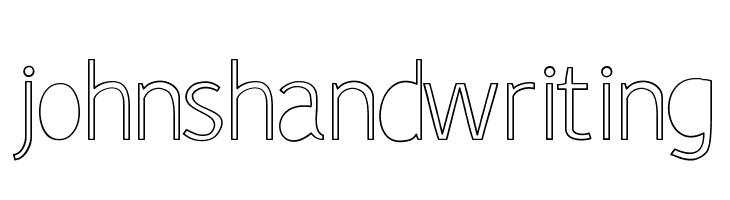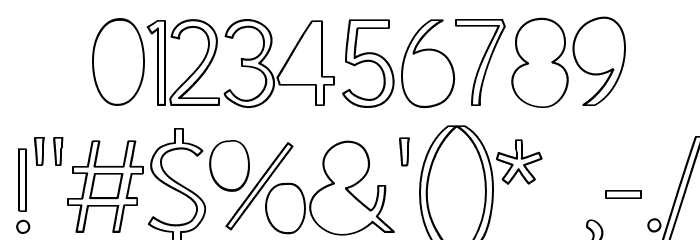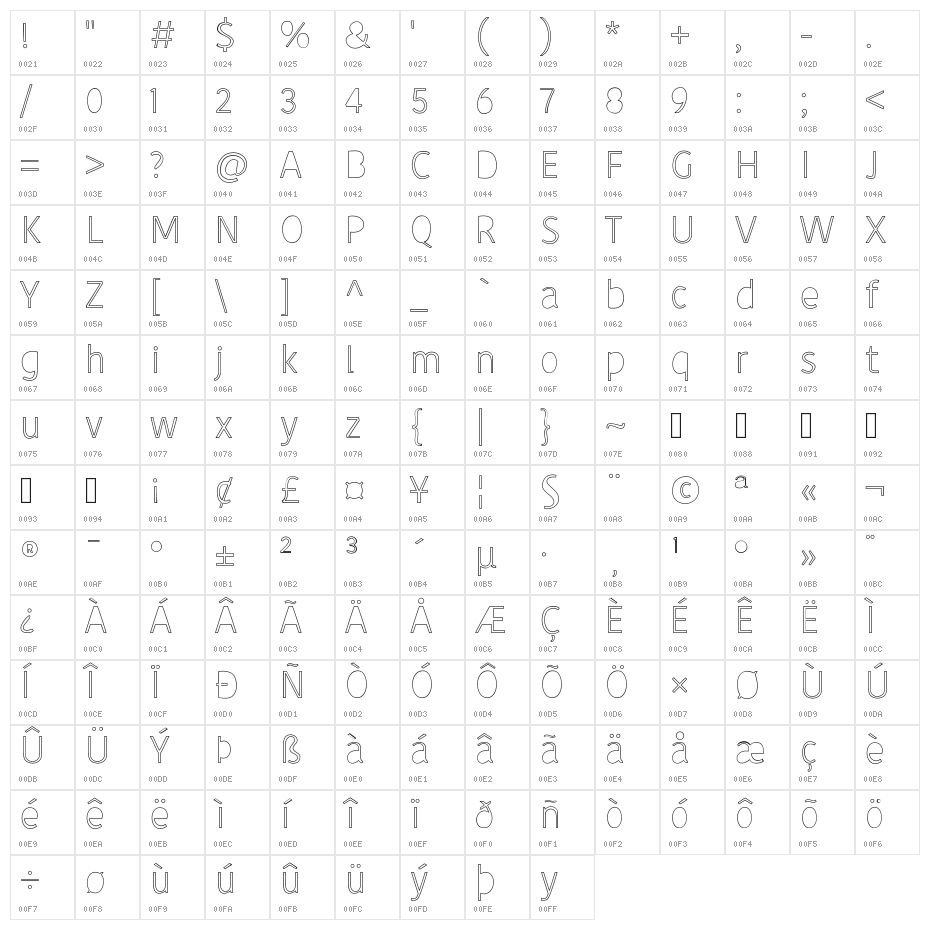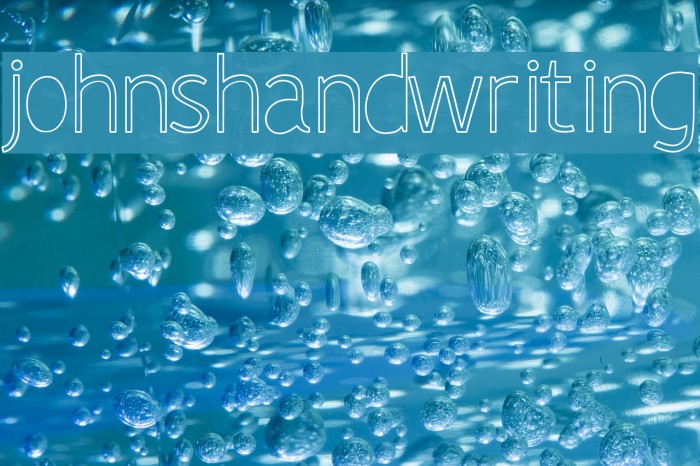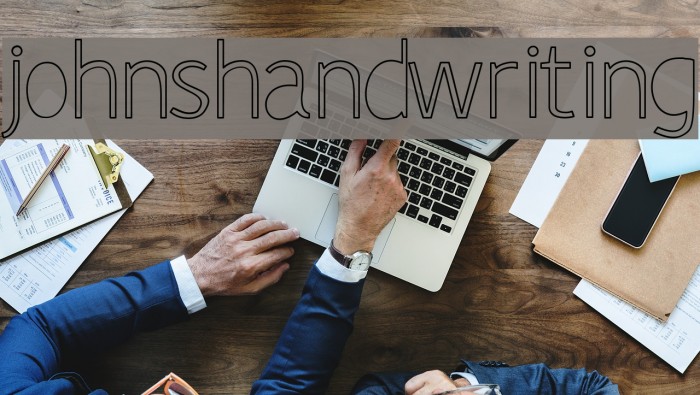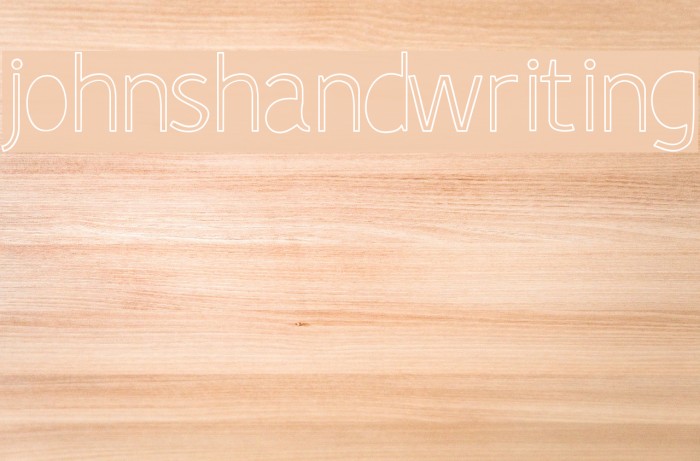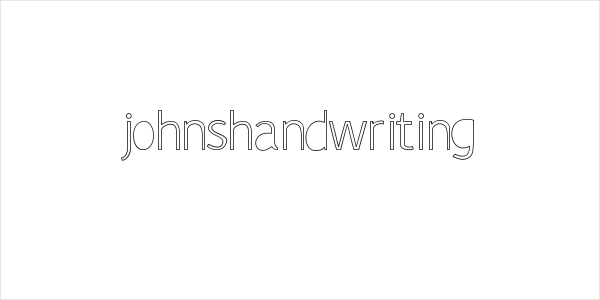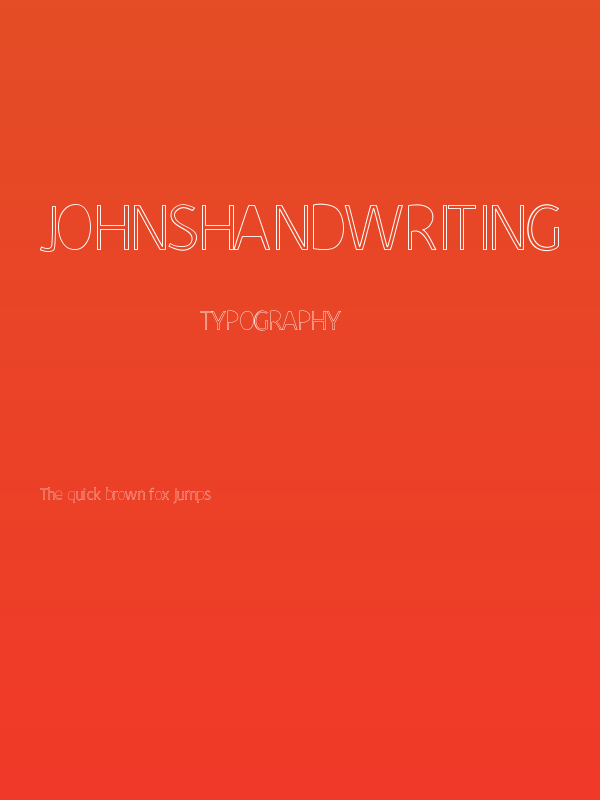
johnshandwriting Font
johnshandwriting Description
This font features a clean and modern design with a geometric structure. The characters are outlined, giving them a hollow appearance, which adds a unique and contemporary touch. The uppercase and lowercase letters maintain a consistent style, with smooth curves and straight lines that create a harmonious look. The numerals and special characters follow the same design principles, ensuring uniformity across all glyphs. This font's simplicity and clarity make it highly readable, while its outlined style adds a distinctive flair that sets it apart from traditional solid fonts.
| Proposed Projects | Ideal for branding, logo design, posters, and modern web design projects where a unique and stylish font is desired. |